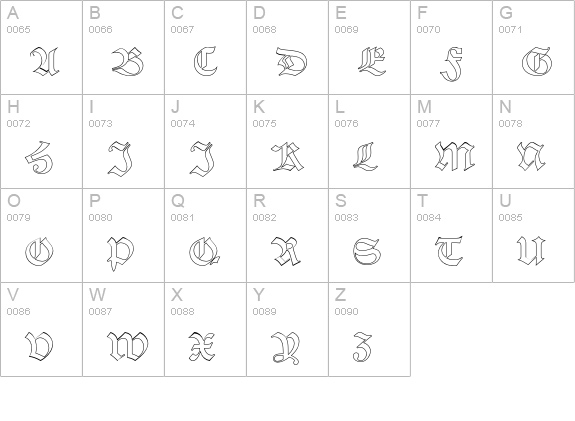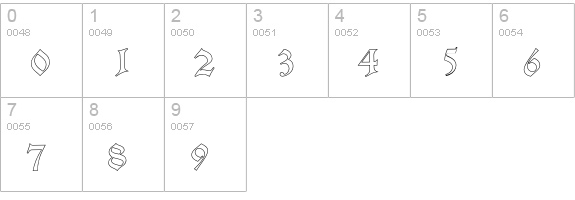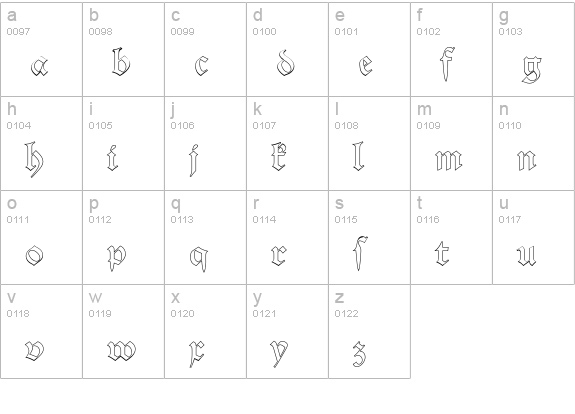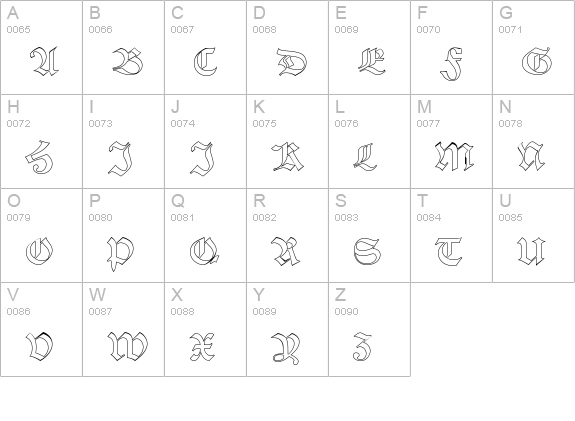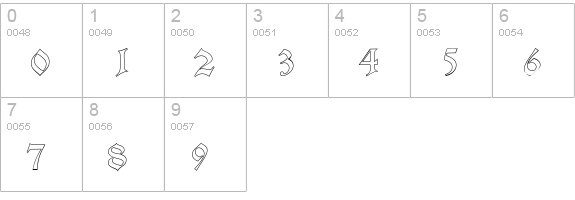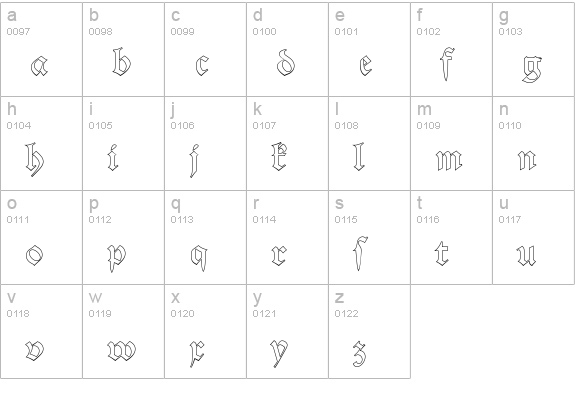
Alte Schwabacher D Ou1 Font Details
Alte Schwabacher D Ou1 is a stunning and historic font with roots dating back to the 16th century. This unique and elegant typeface features intricate details and old-world charm that will add a touch of sophistication to any project. Its distinctive letterforms and flowing lines make it perfect for creating vintage-inspired designs, invitations, and signage. What makes Alte Schwabacher D Ou1 even more special is that it is available for free download at FontsMarket.com. This means that you can easily access this beautiful font and use it in your personal or commercial projects without any cost. Whether you're a designer looking to add a touch of nostalgia to your work or a hobbyist wanting to experiment with different typefaces, Alte Schwabacher D Ou1 is a fantastic choice. Download it today and let your creativity soar with this timeless and versatile font.